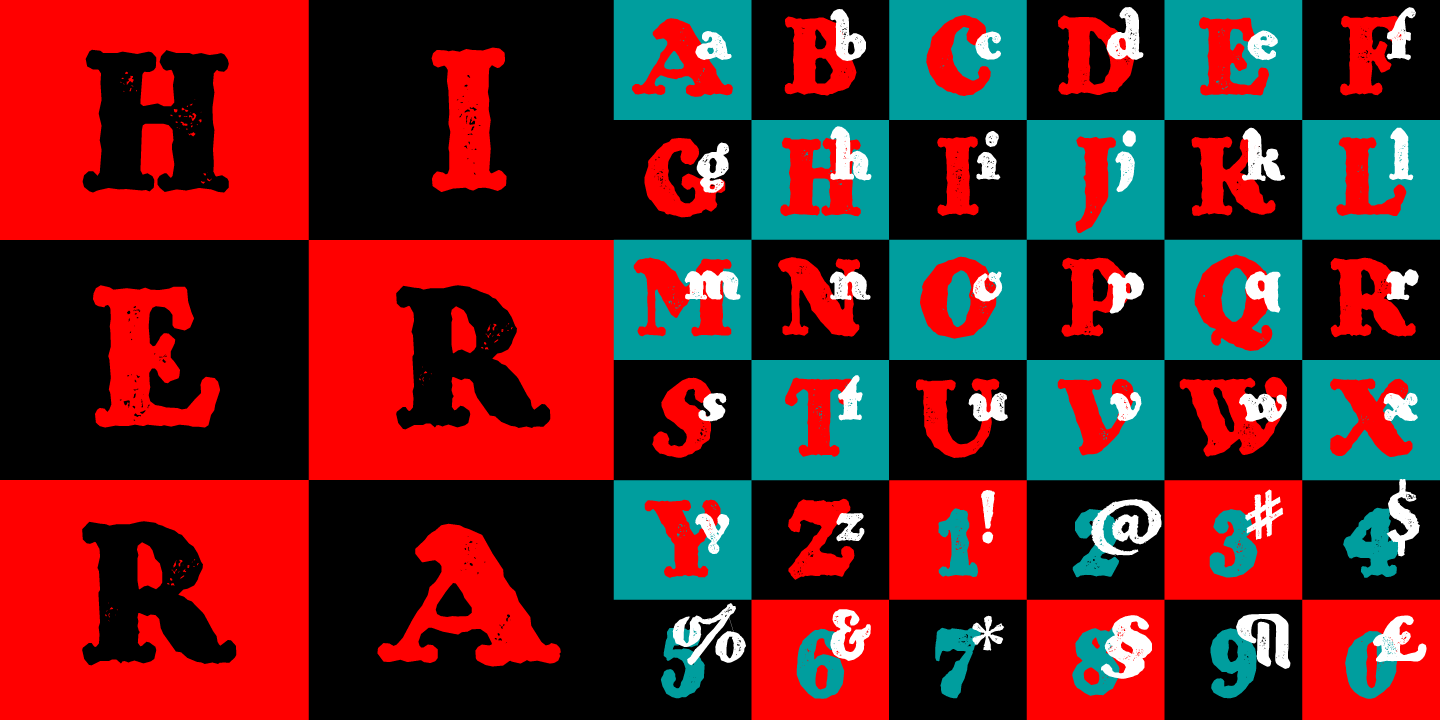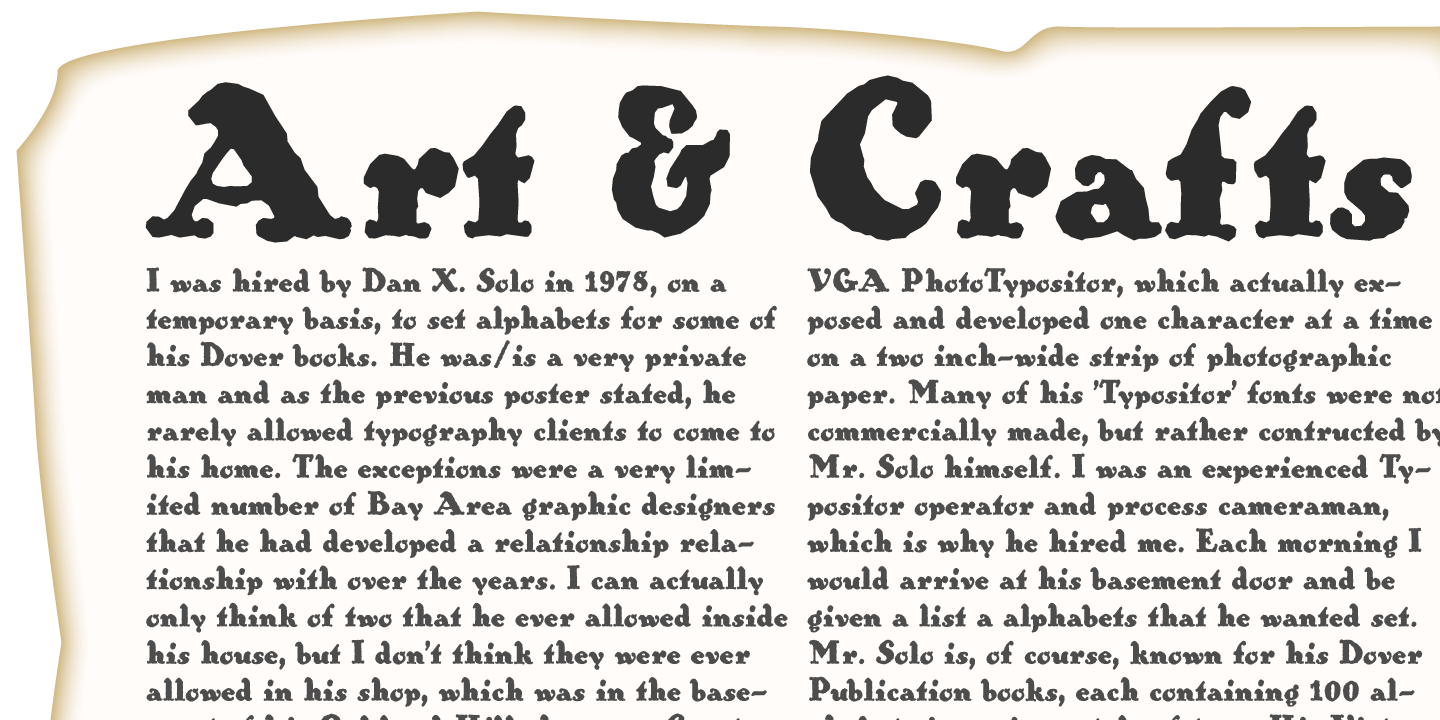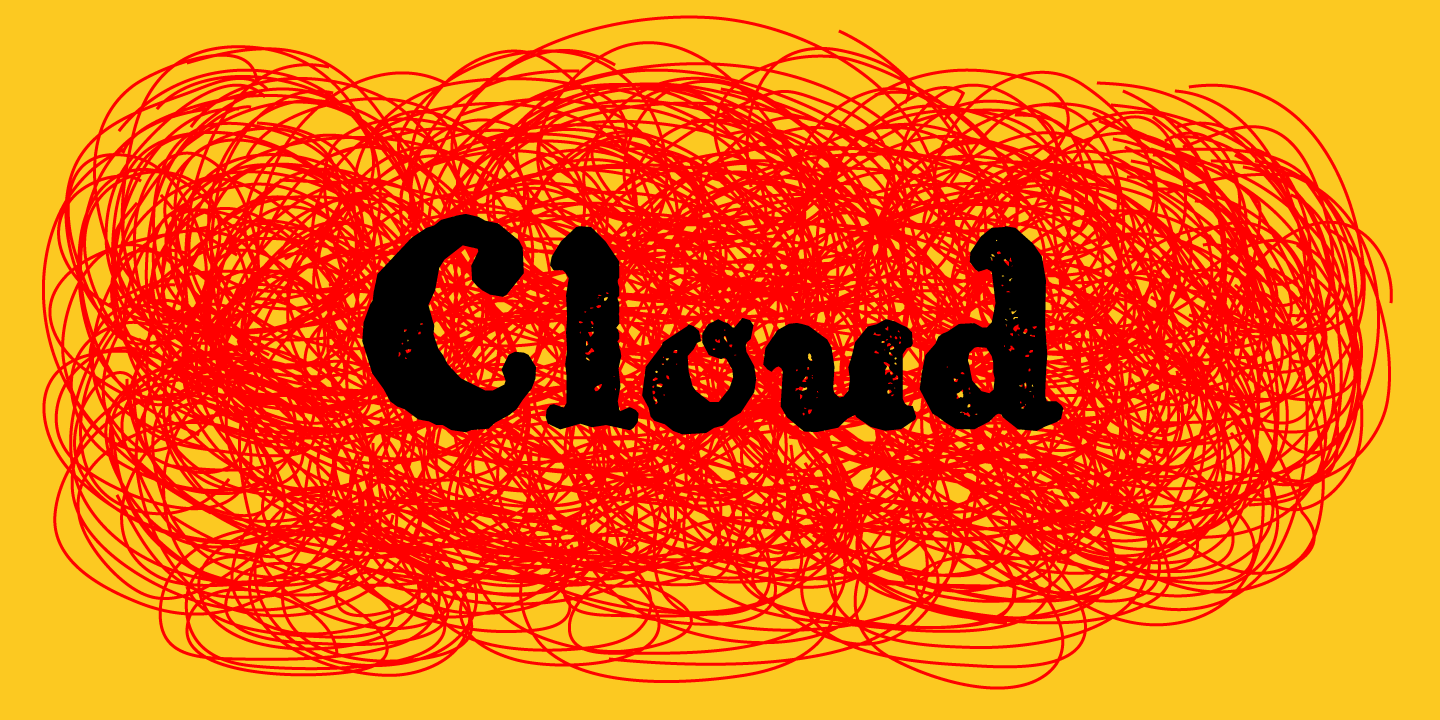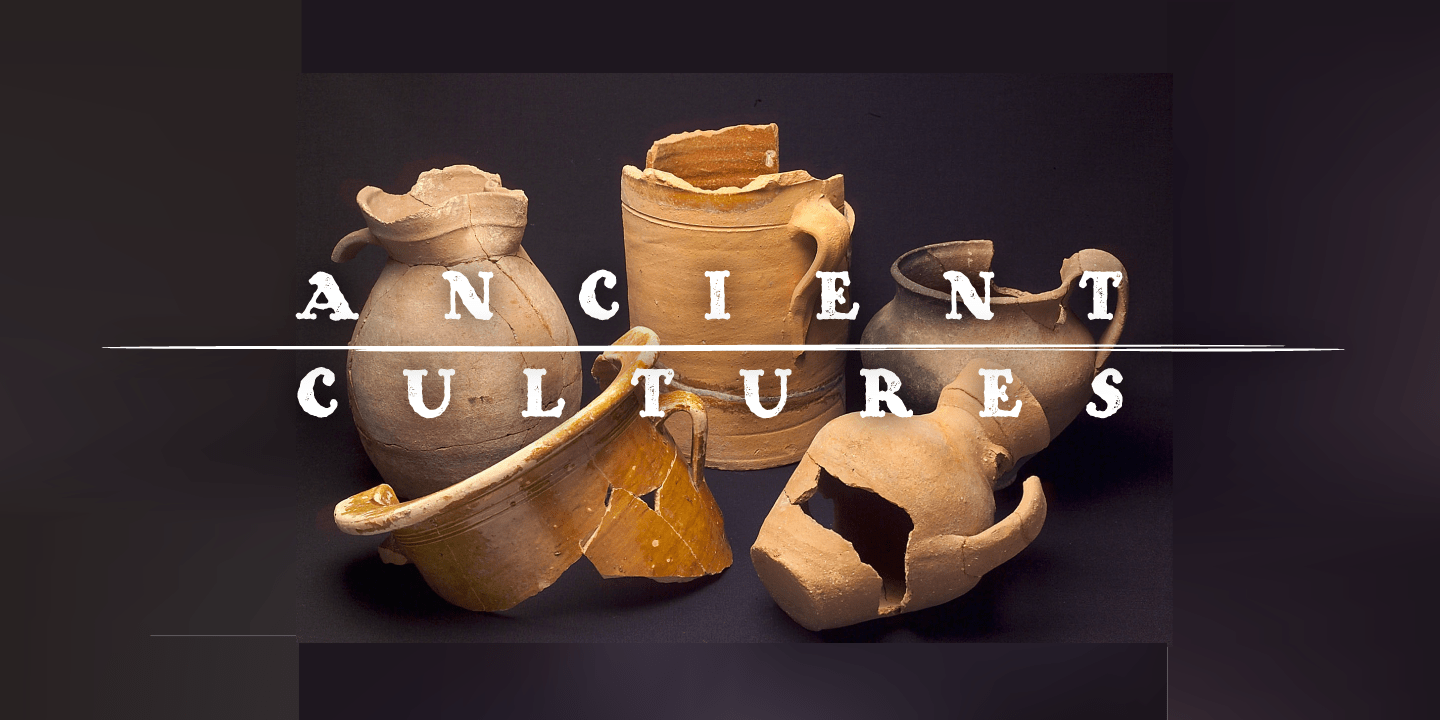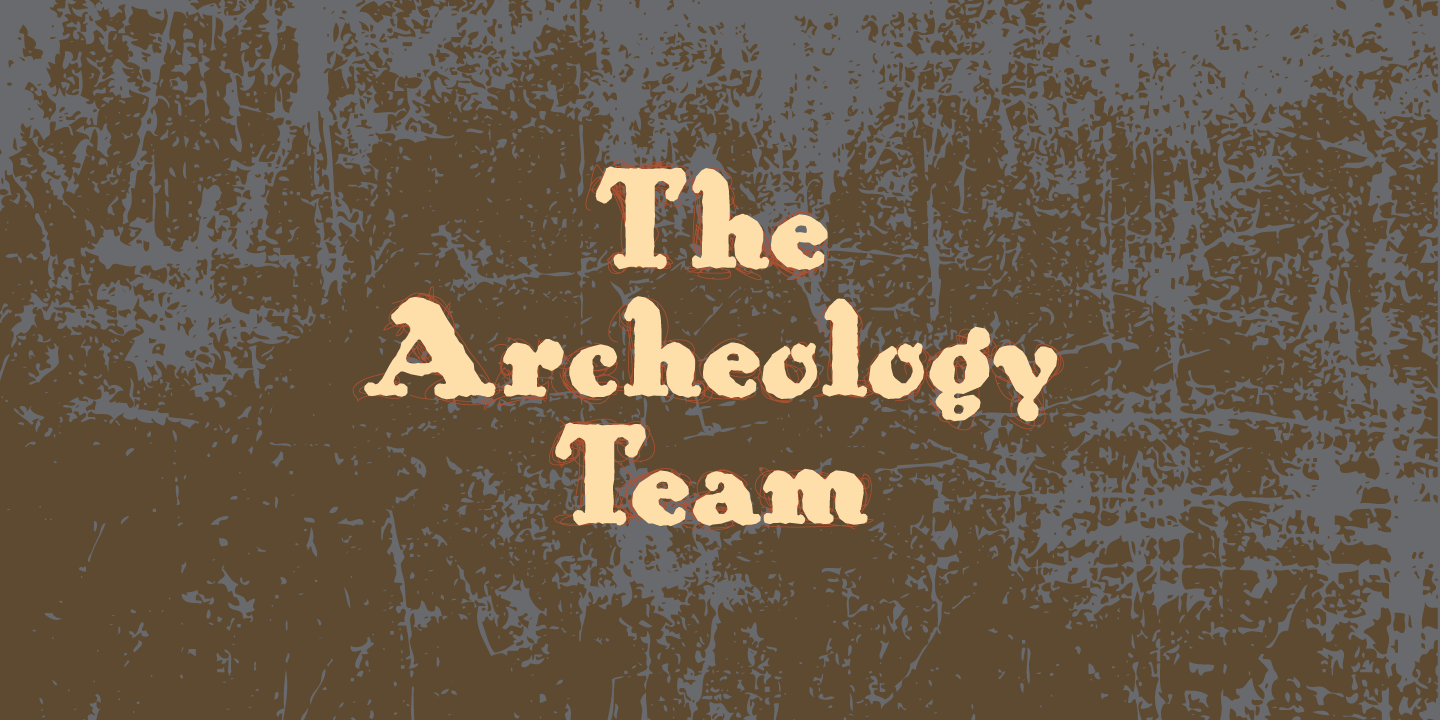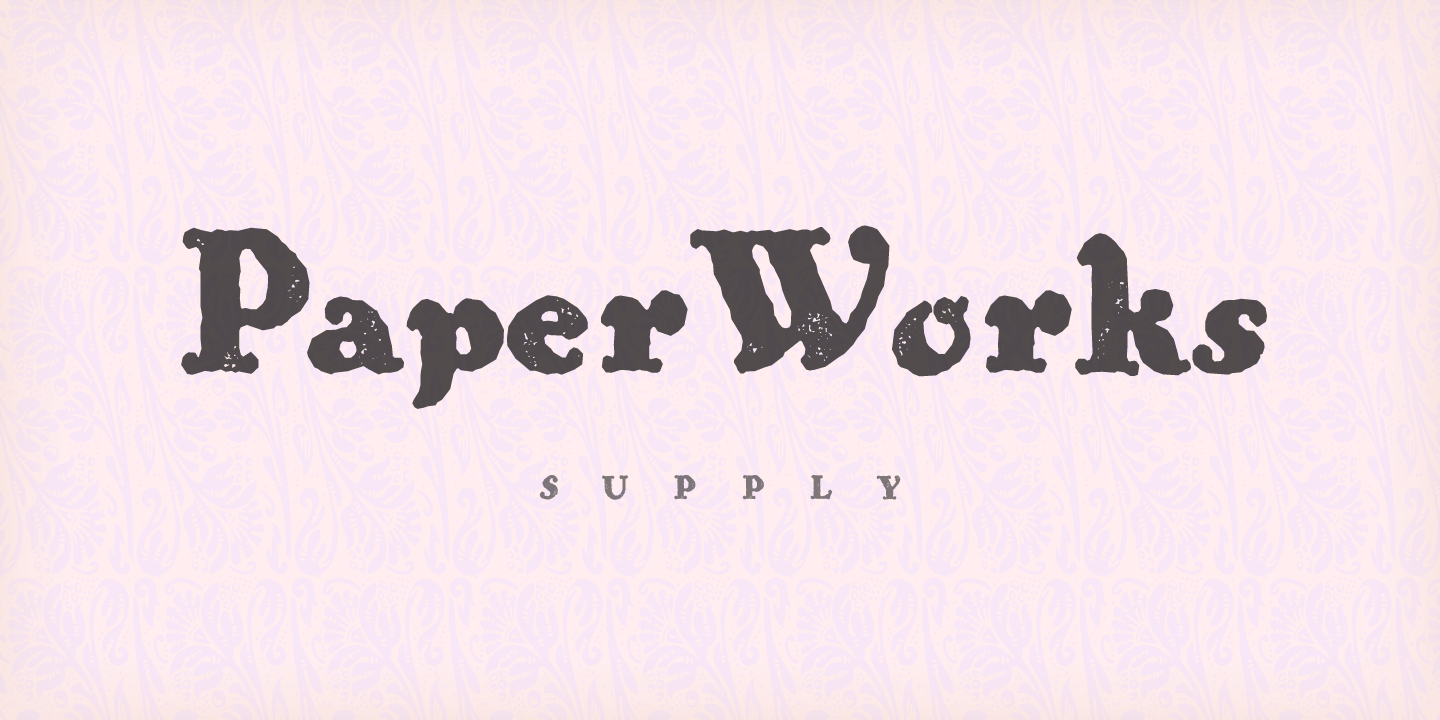
Hierra
Hierra is a reinterpretation or redraw letter design of a font that appears in the collection of fonts of Dan X. Solo. Strong German flavor this is a letter of rough edges and a special blackness that recalls ancient typefaces Art & Crafts. Hierra is also presented in the Rough version which increases their antique woodtype appearance.